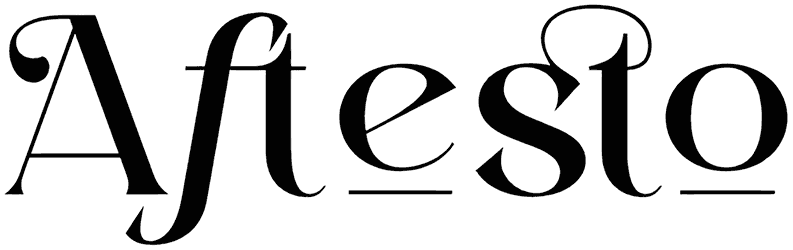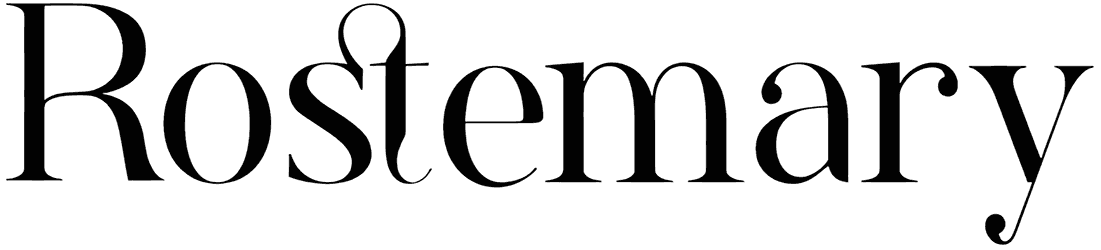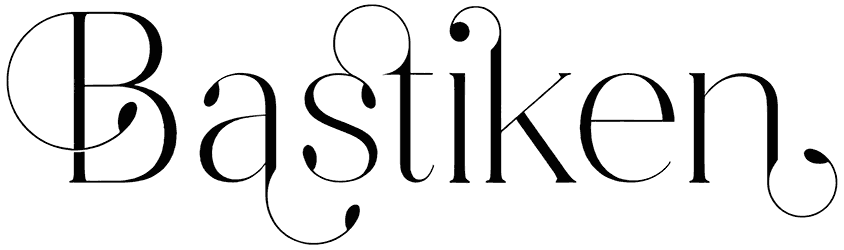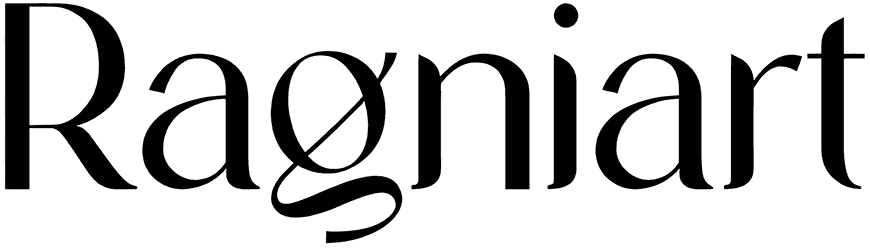
<meta property="og:description" content="The Diamond Bridge is a serif font with a friendly personality that helps you present your ideas with an impact. This font does not support numbers, and you can use it for different purposes, such as logos, magazines, and book covers. The Diamond Bridge font’s letters have a stunning, classy design and send a pleasant [&hellip;]" />